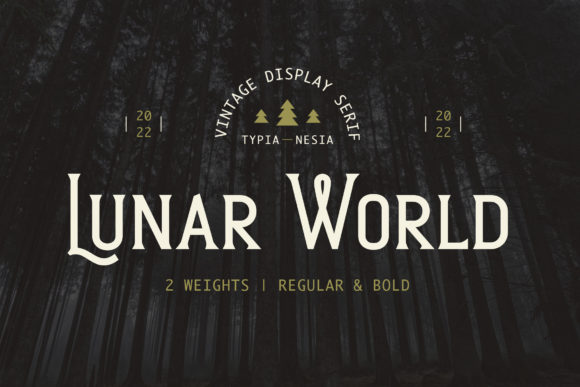
Looking for the perfect font to elevate your design projects? Look no further than Lunar World Font! This classic vintage display serif font family, created by Typia Nesia, is the ideal choice for anyone looking for the best fonts for book writing.
Lunar World Font is more than just a font – it's a wild custom garage font that exudes adventure and campfire vibes. Whether you're creating a vintage garage design or branding for an adventure/mountain hiking company, this font is versatile enough to meet your needs.
But Lunar World Font isn't just for outdoor enthusiasts – it's also perfect for hardcore music, animation, movies, and retro summer poster quotes. And with its timeless appeal, it's the perfect choice for book/novel cover titles and editorial designs as well.
So why choose Lunar World Font? With its unique blend of classic and modern design elements, this font is sure to make your project stand out. Its vintage aesthetic is perfect for creating a sense of nostalgia, while its modern edge adds a touch of sophistication.